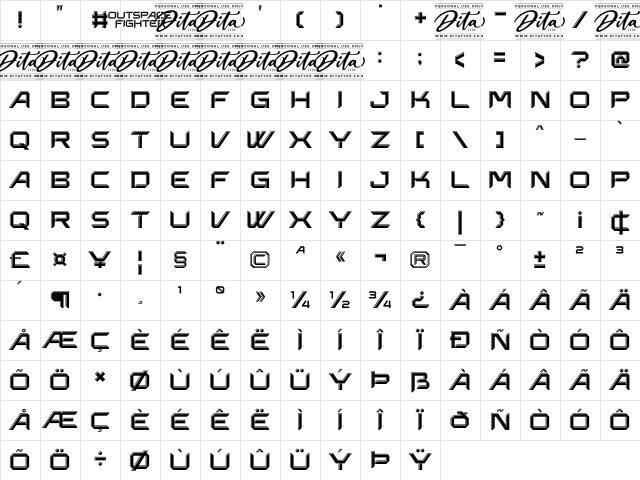
Outspace Fighter Personal Use Regular Free Font
Outspace Fighter Personal Use Regular
Foundry: Din Studio
Designer: Donis Miftahudin
Design Context for Outspace Fighter Personal Use
Outspace Fighter Personal Use is a composed and adaptable typeface that performs quietly and consistently across a wide range of design contexts.